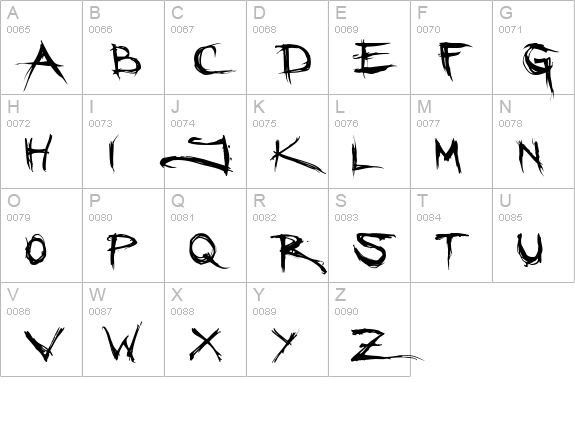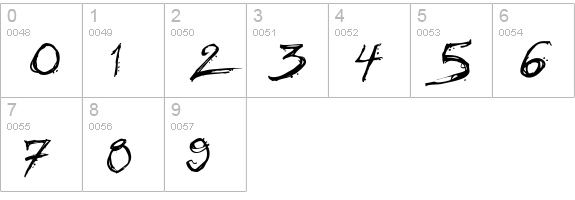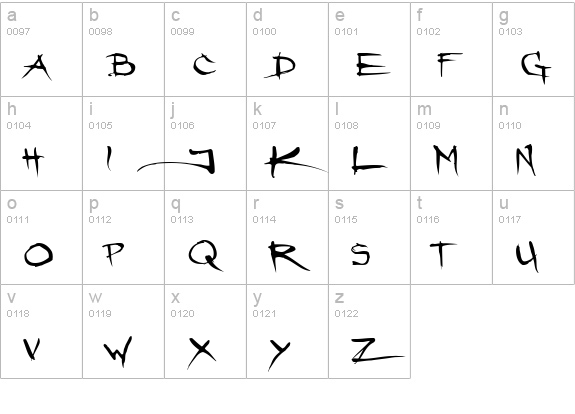
Angryblue Font Details
Angryblue font is a bold and edgy typeface that perfectly captures the essence of raw emotion and intensity. Its sharp angles and powerful strokes convey a sense of strength and determination. The aggressive nature of this font makes it ideal for creating eye-catching headlines, posters, and branding materials that demand attention. What sets Angryblue font apart is not only its striking design but also the fact that it is available for free download at FontsMarket.com. This means that designers and creatives can easily access this powerful font and incorporate it into their projects without any cost. So go ahead, unleash your creativity with Angryblue font and make a bold statement with your designs.